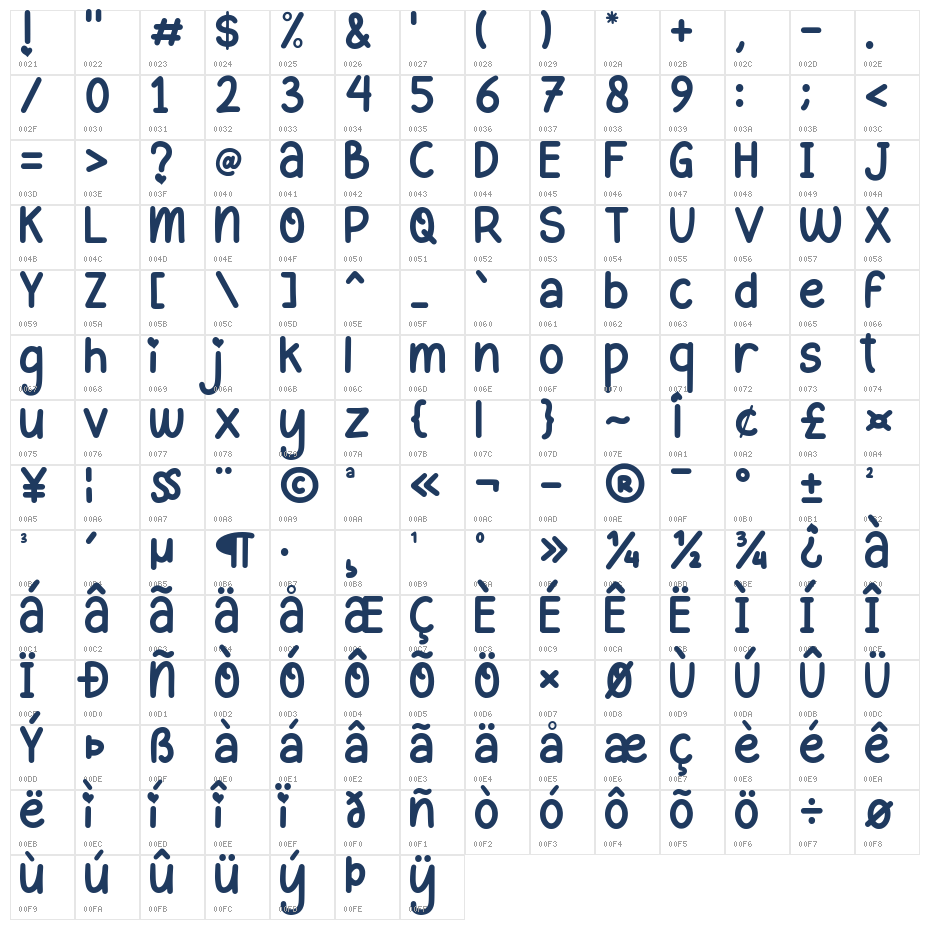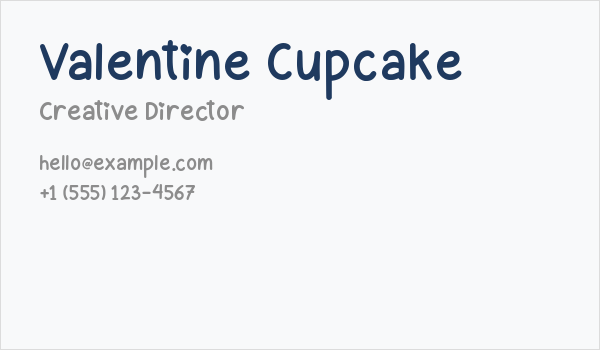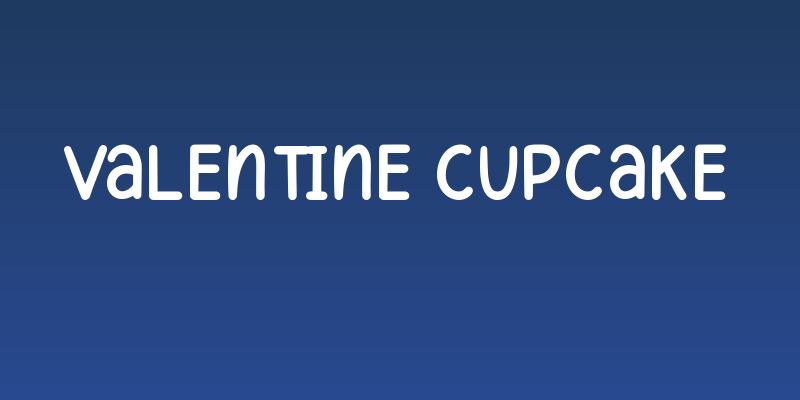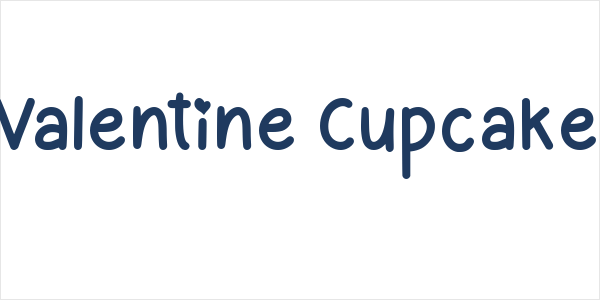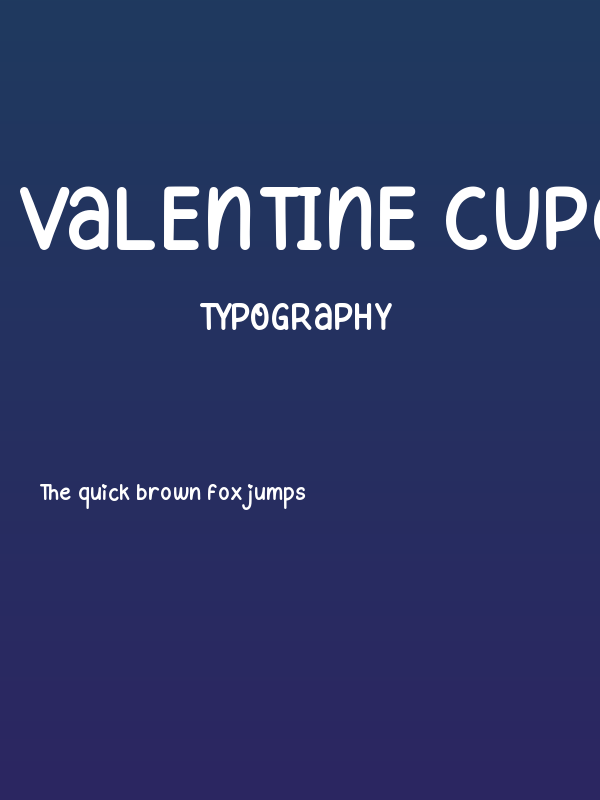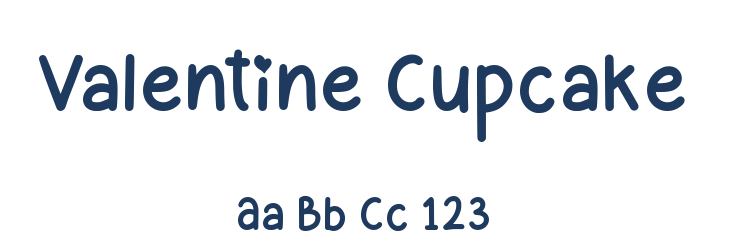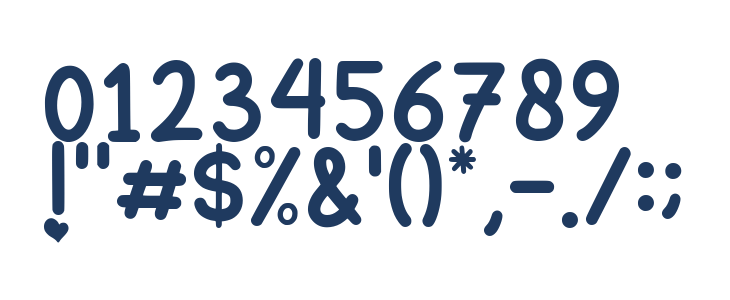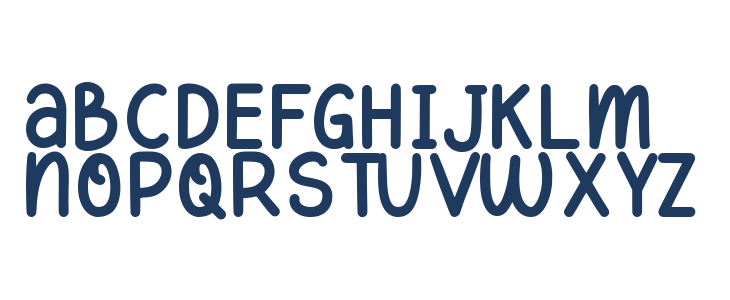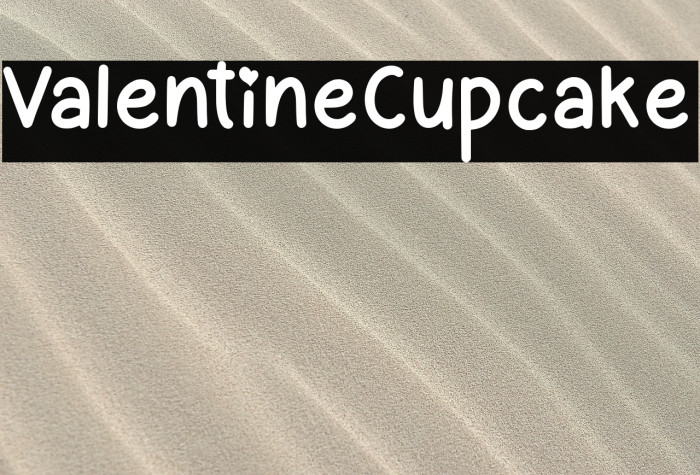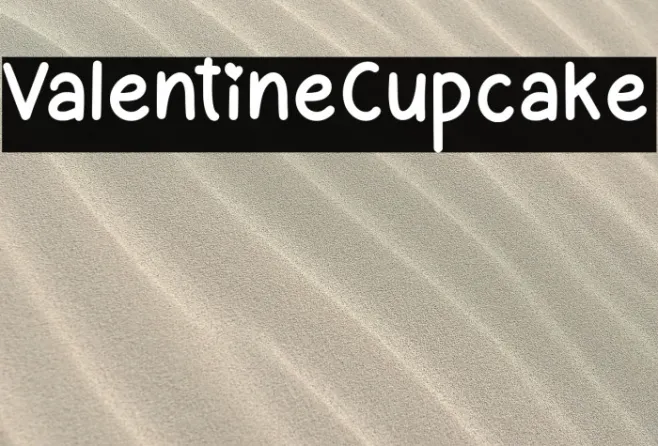
Valentine Cupcake Font
Valentine Cupcake Description
A playful, rounded, handwritten style font with a casual and friendly appearance. It features slightly irregular shapes, giving it a whimsical and informal feel.
Valentine Cupcake
| Overall Style | Casual, Playful, Friendly |
| Use Case | Headlines, Body text, Logos, Invitations, Children's materials |